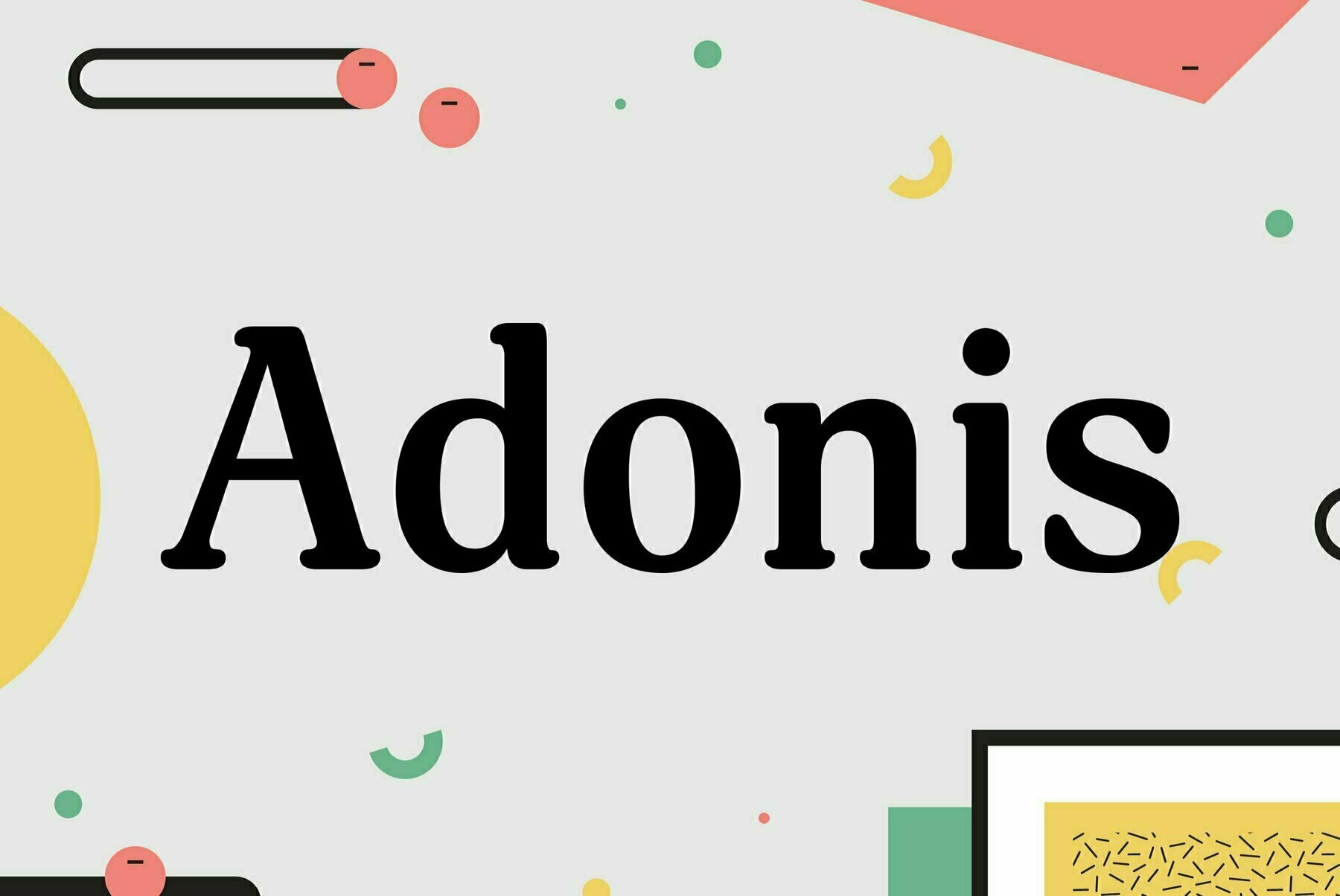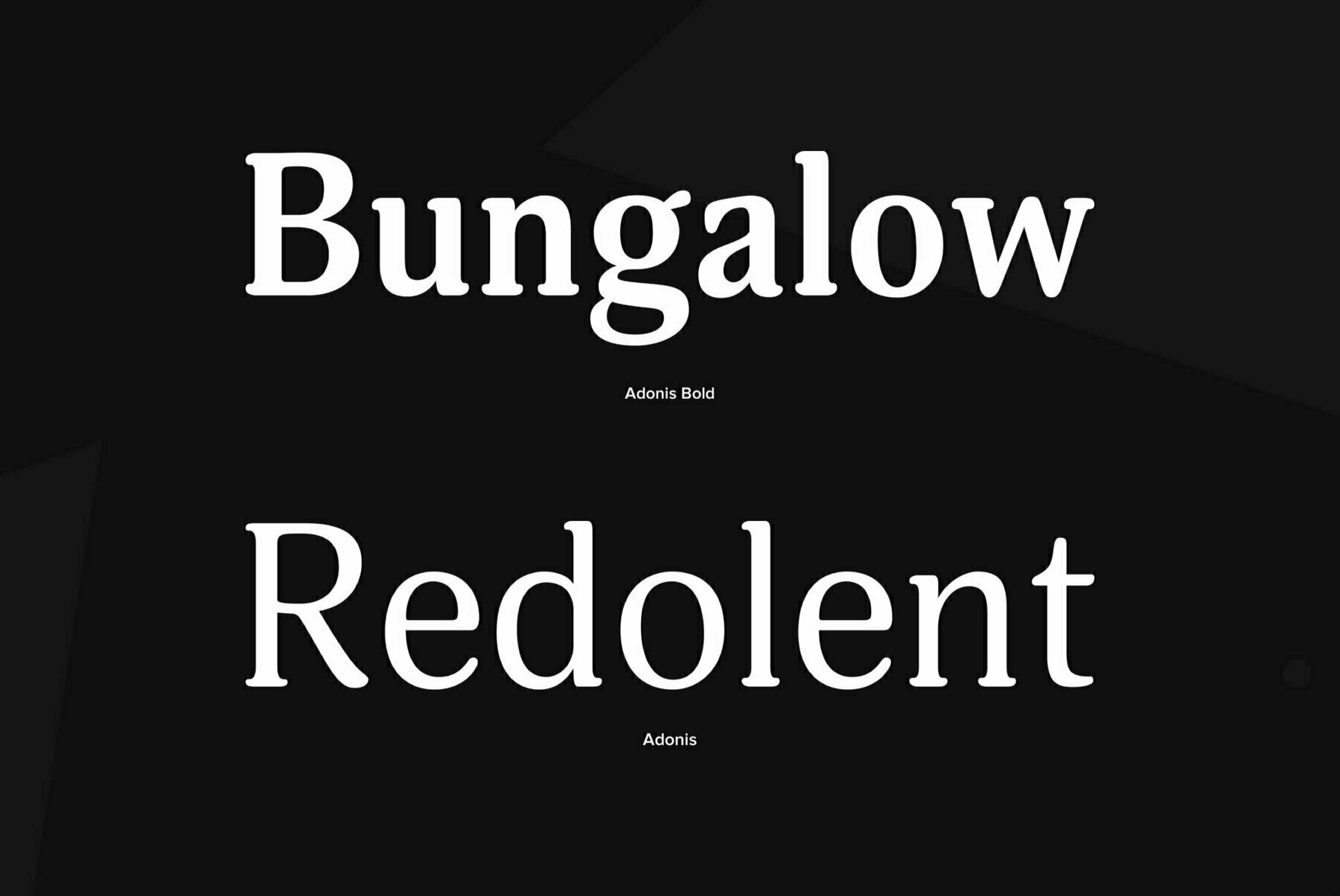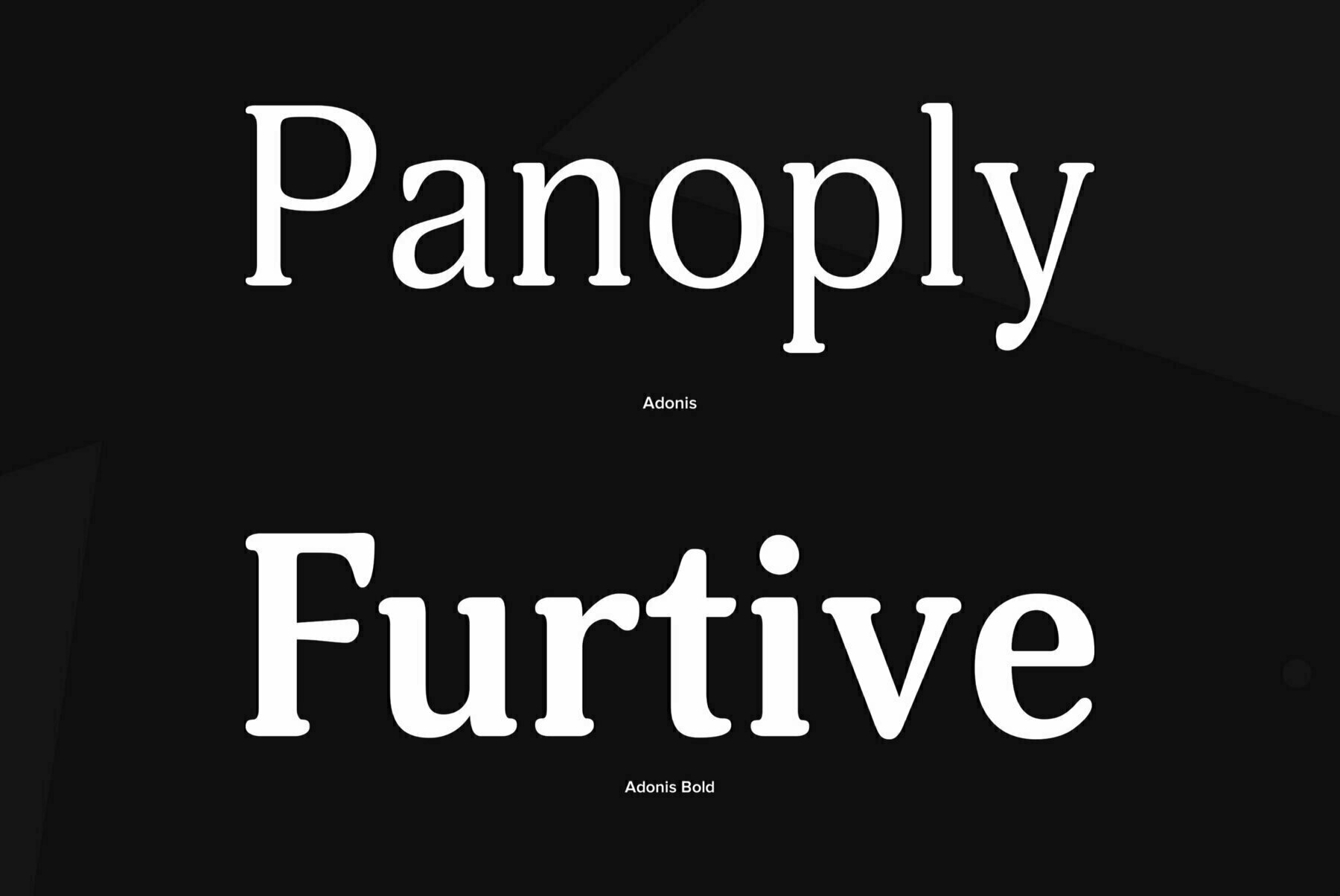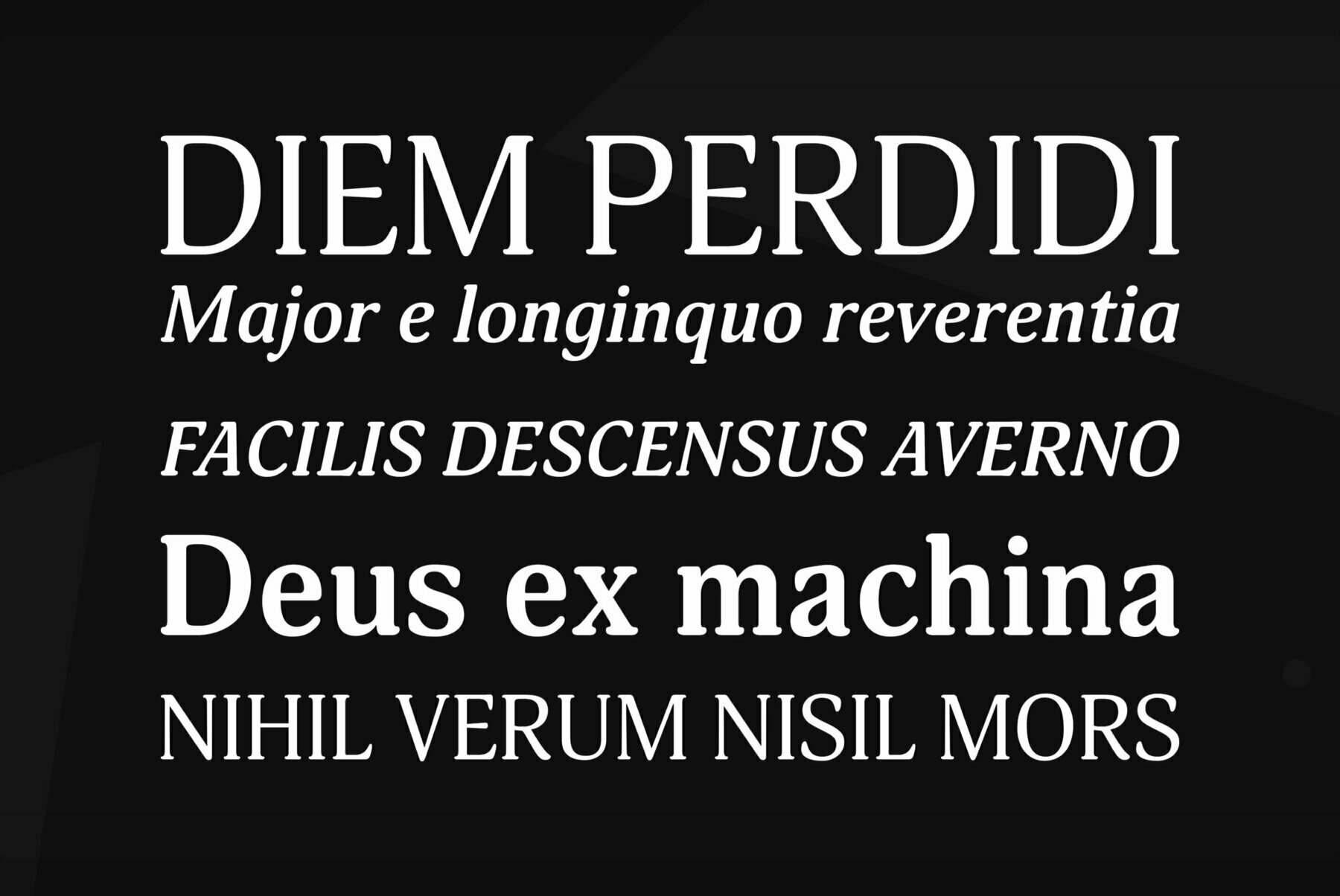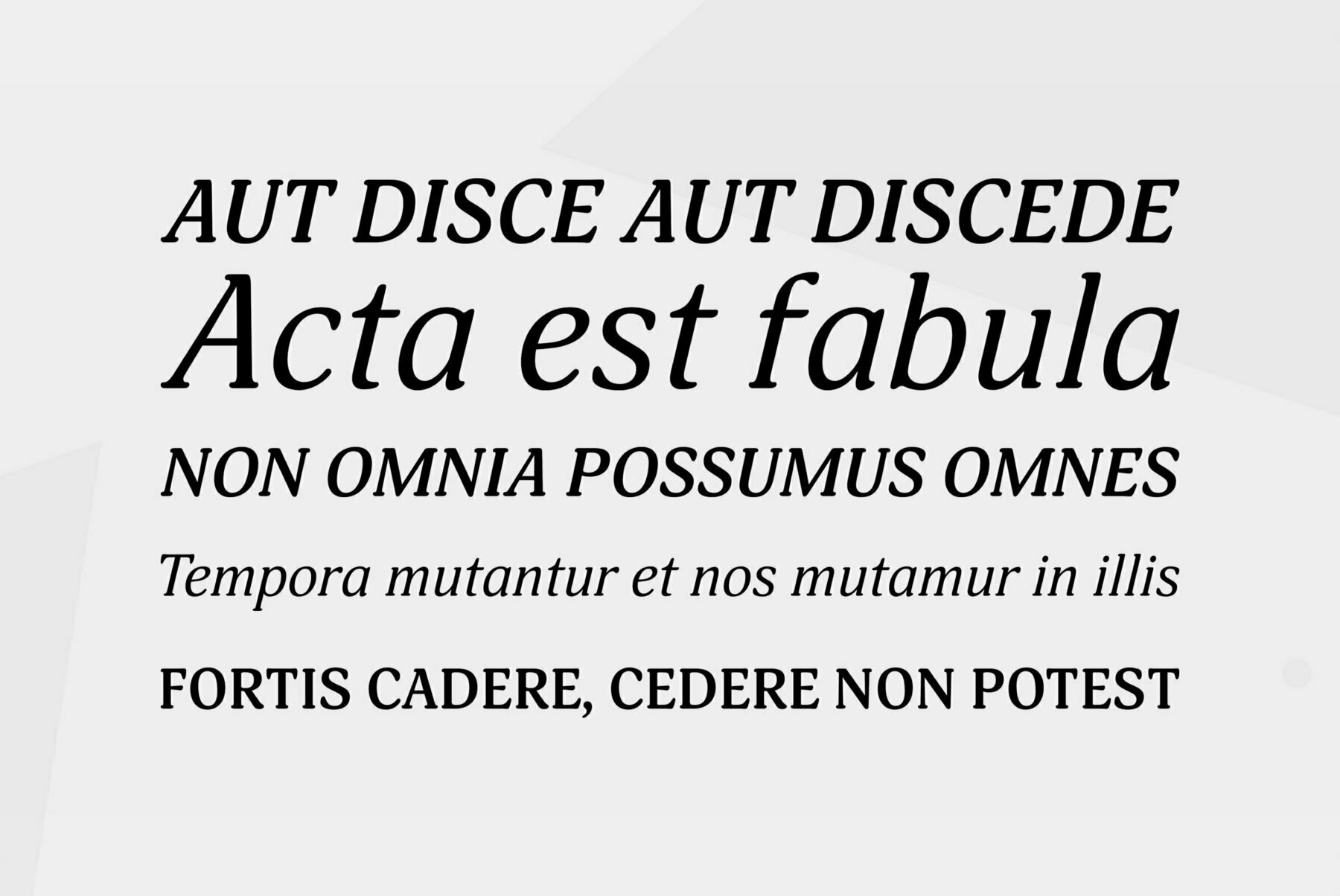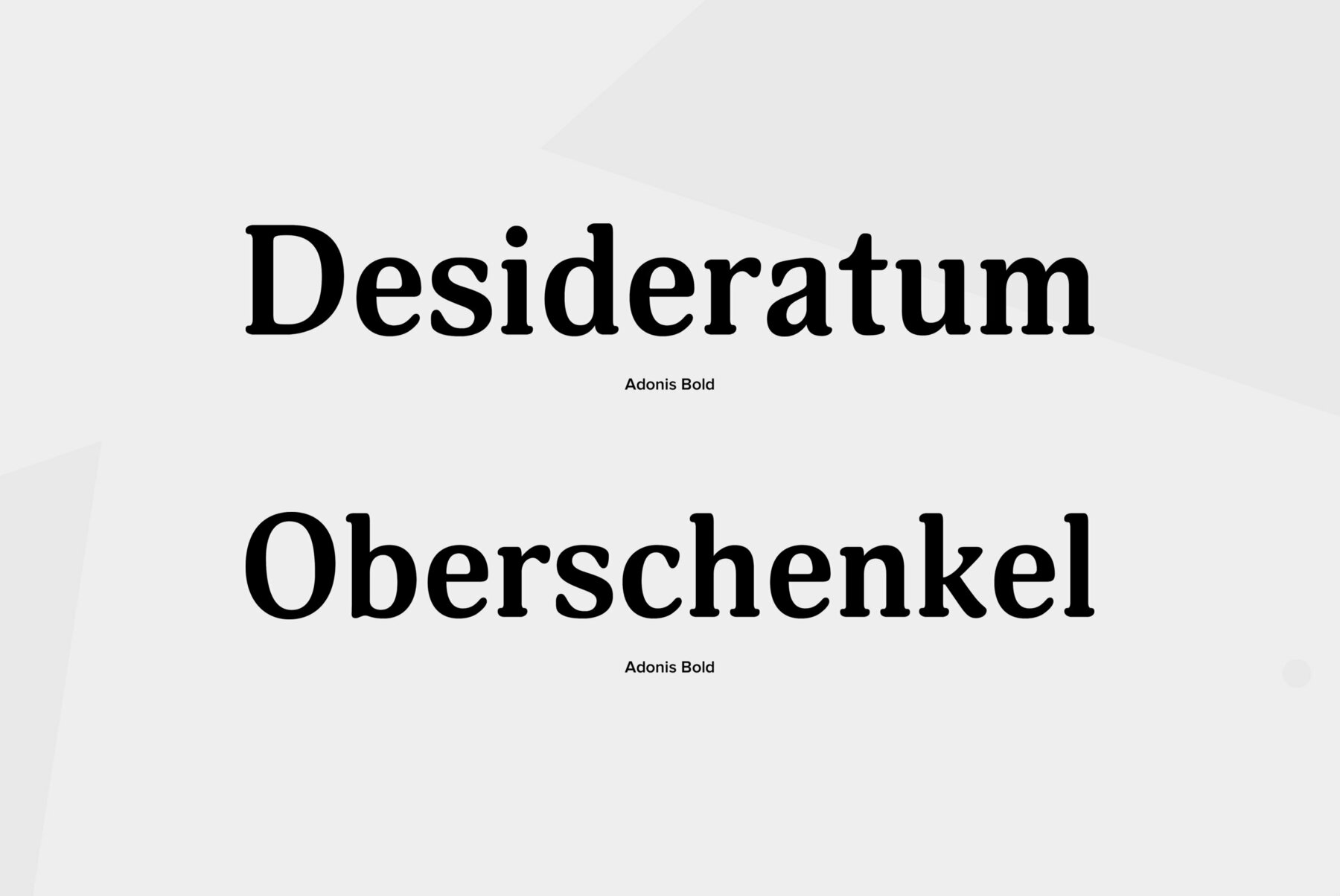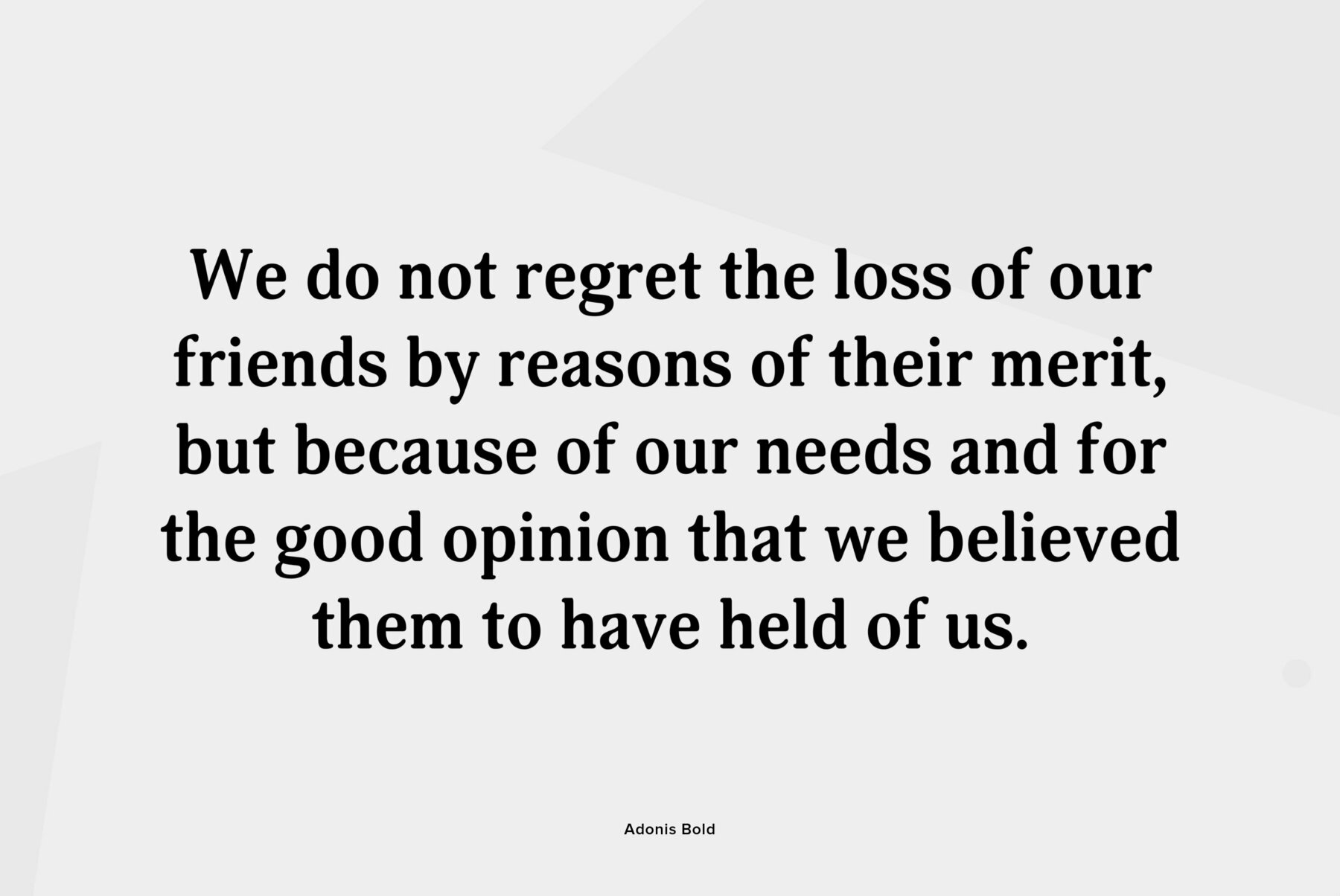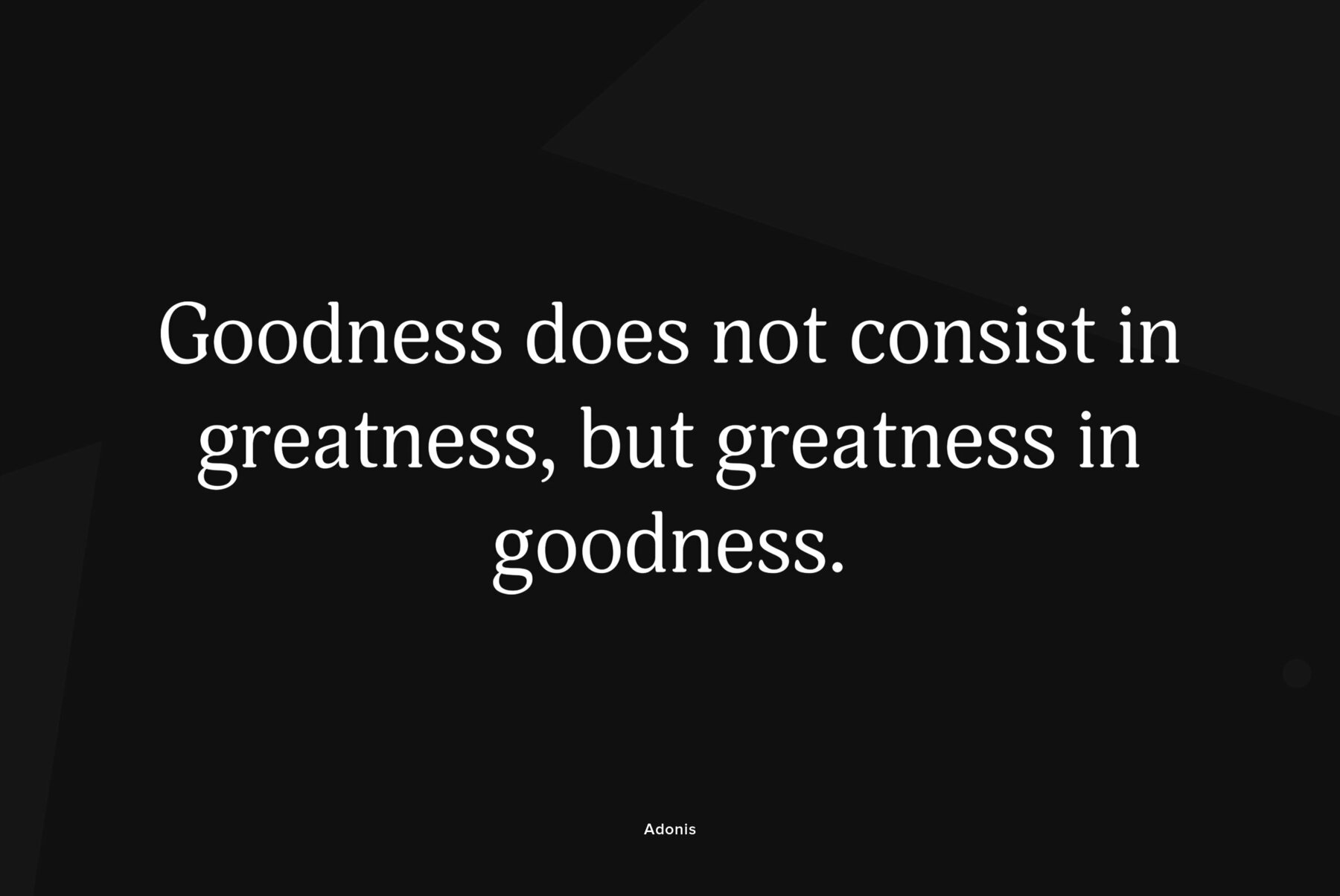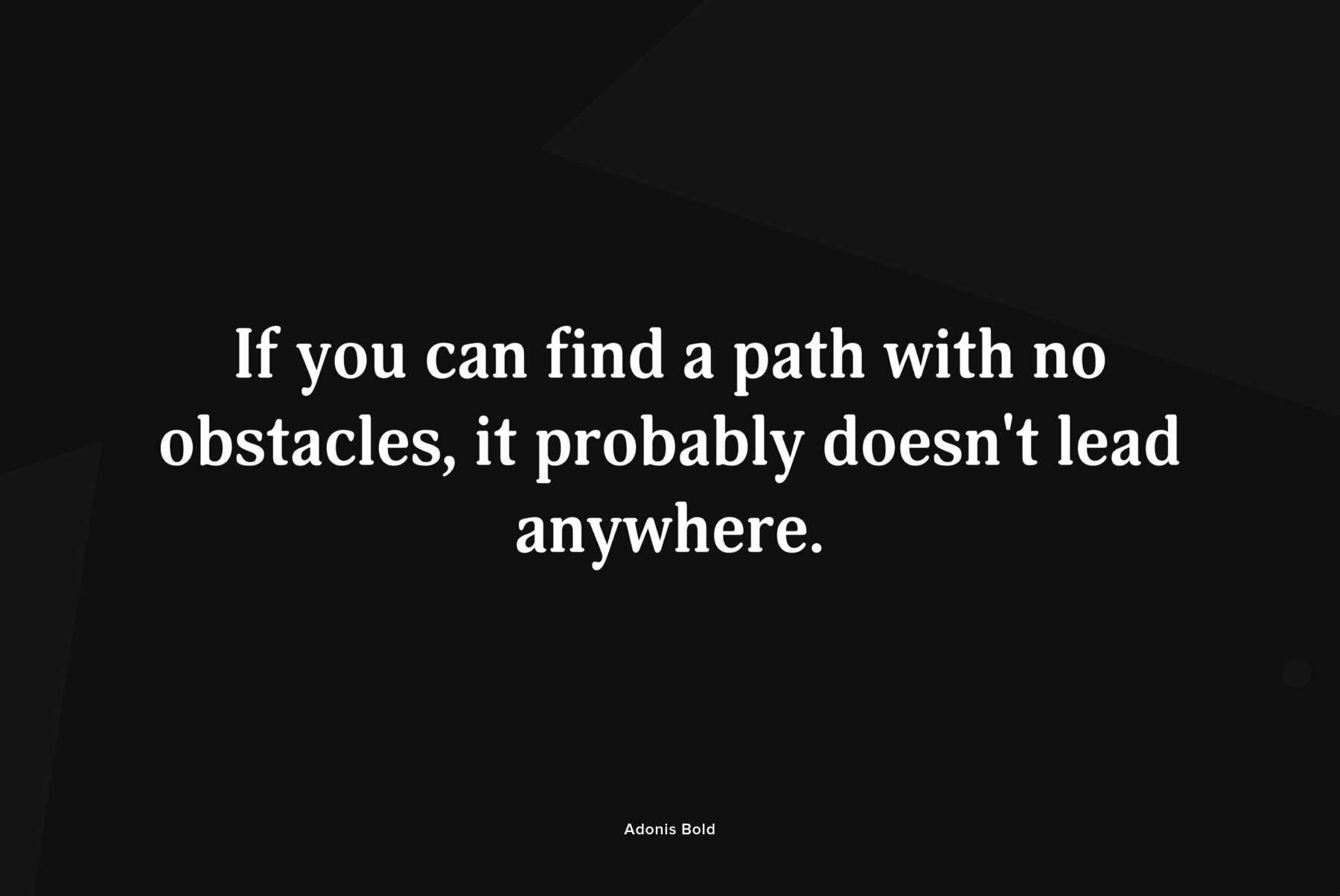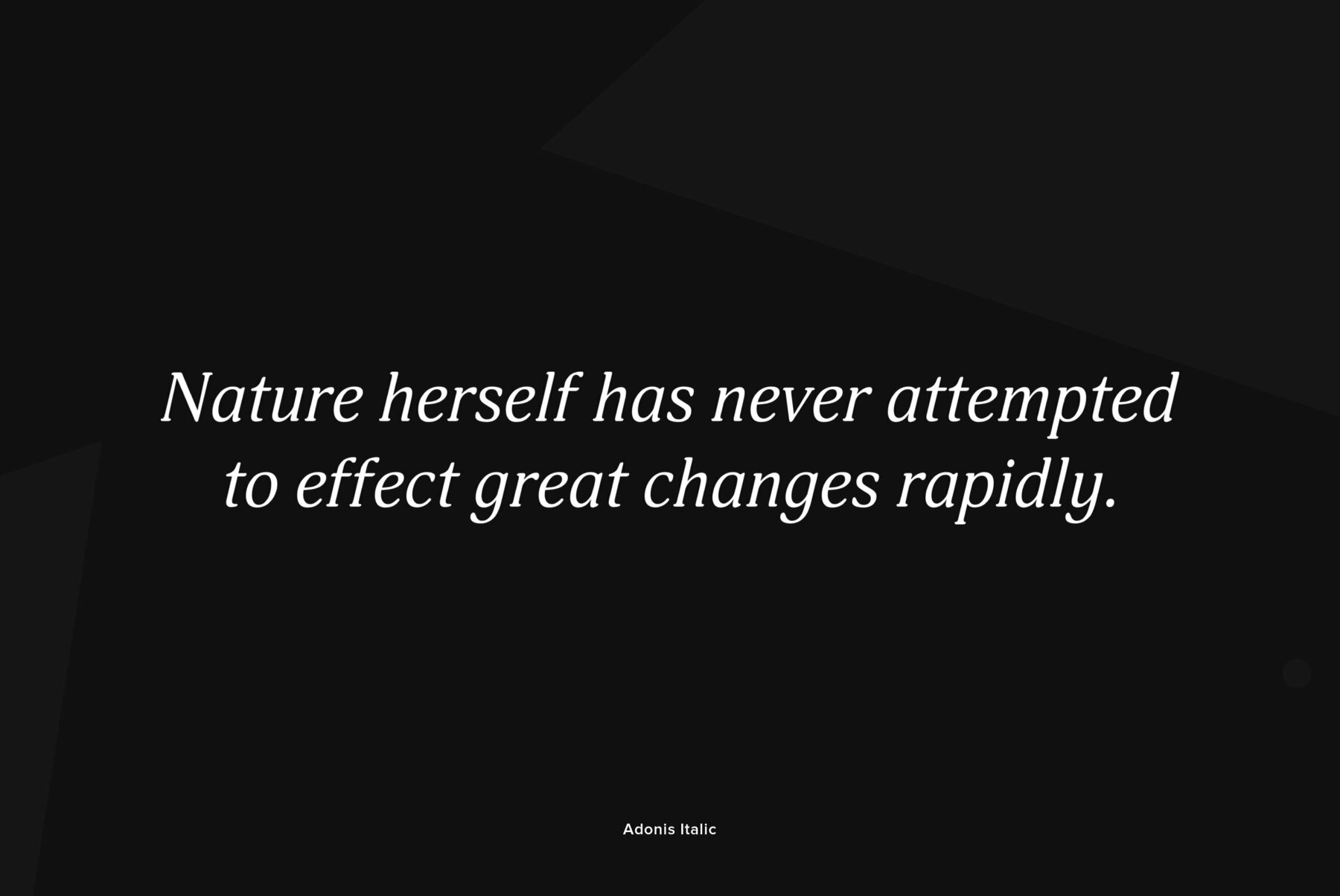
PT Adonis was designed by Natalia Vasilyeva and licensed by ParaType in 2002. An original typeface, its characters have slightly oblong proportions, with rounded serifs and generally soft letterforms. The face is both space-saving and quite legible in sm...
PT Adonis was designed by Natalia Vasilyeva and licensed by ParaType in 2002. An original typeface, its characters have slightly oblong proportions, with rounded serifs and generally soft letterforms. The face is both space-saving and quite legible in small sizes. For use in text and display typography.